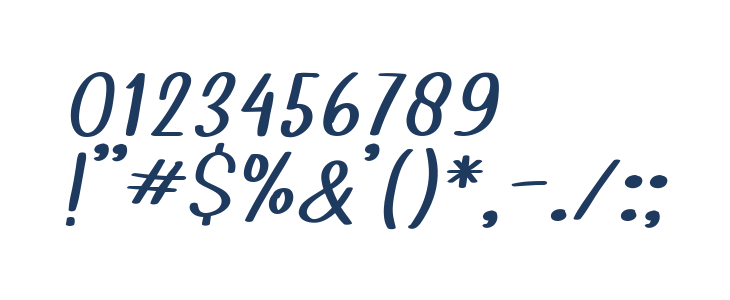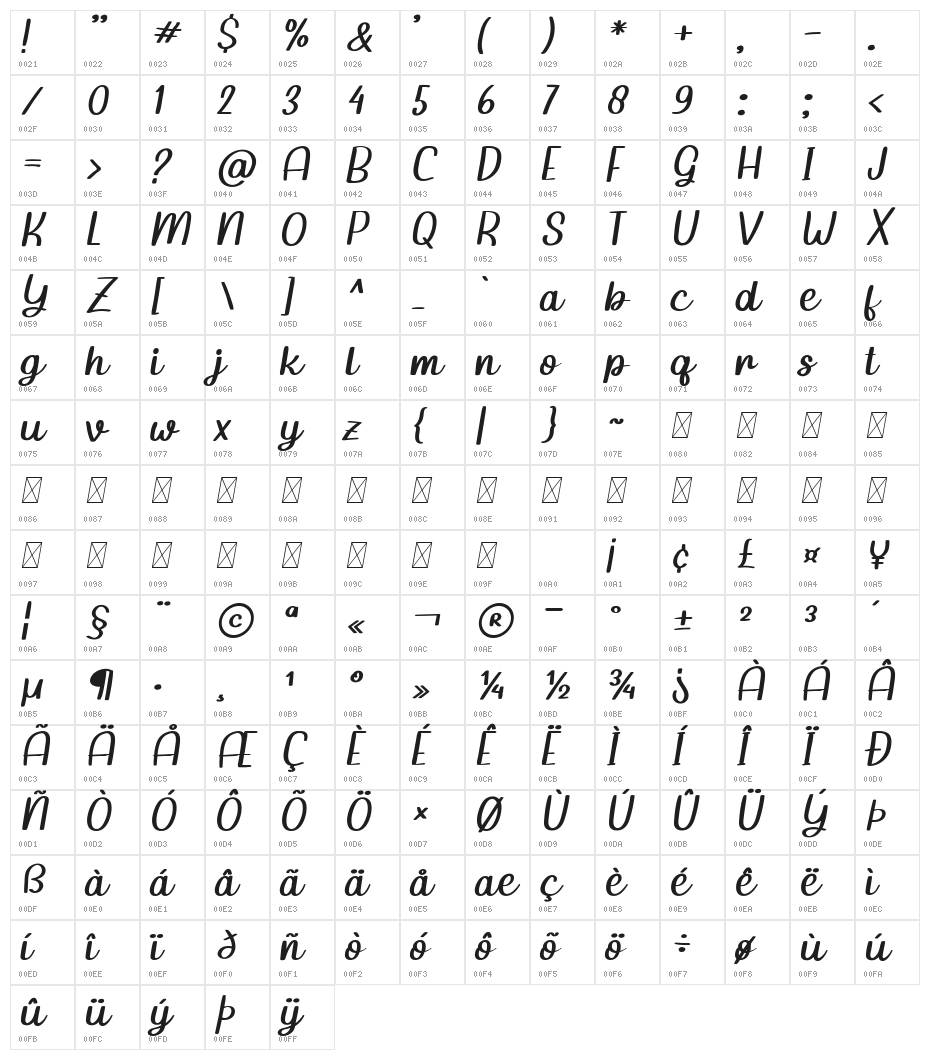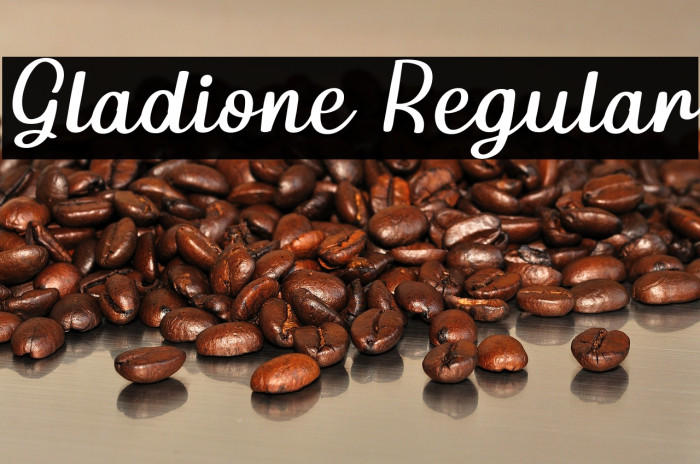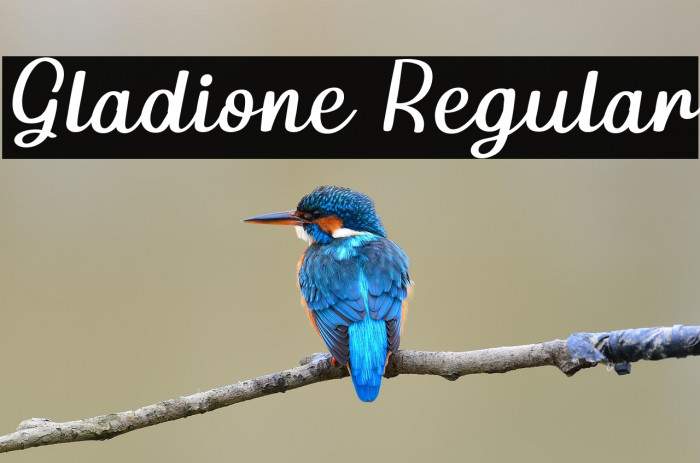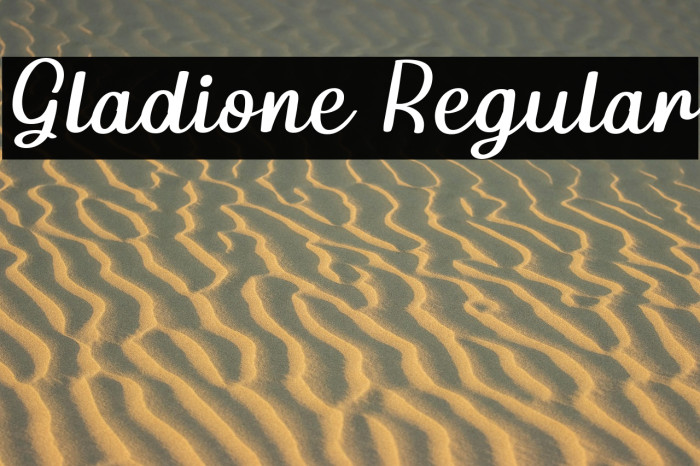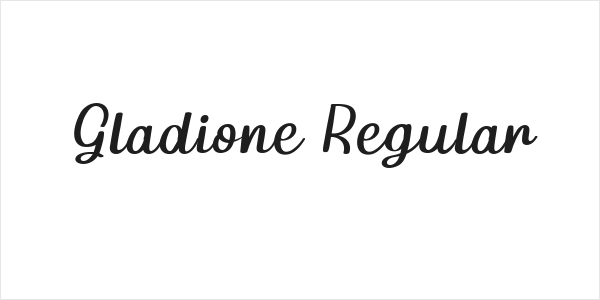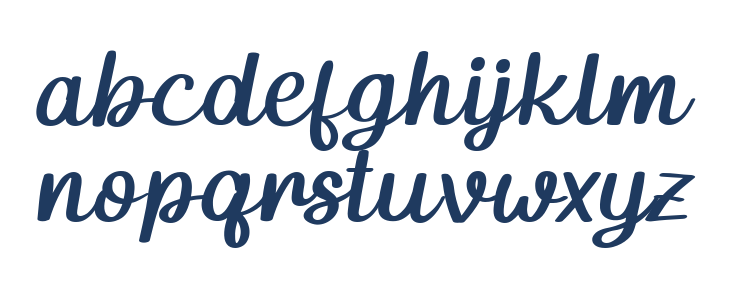
Gladione Regular Font
Gladione Regular Description
This font features a smooth, flowing script style that combines elegance with readability. The uppercase letters are slightly slanted, giving a dynamic and lively appearance, while the lowercase letters maintain a consistent flow with rounded edges and smooth curves. The numerals are clear and well-proportioned, matching the overall aesthetic. Special characters are designed to complement the script style, ensuring a cohesive look across all text elements. The font's design is both modern and versatile, making it suitable for a variety of applications.